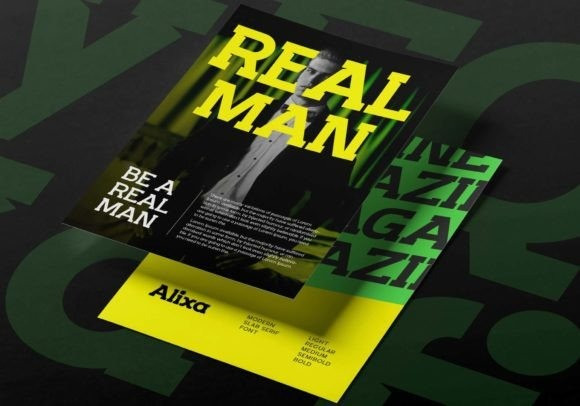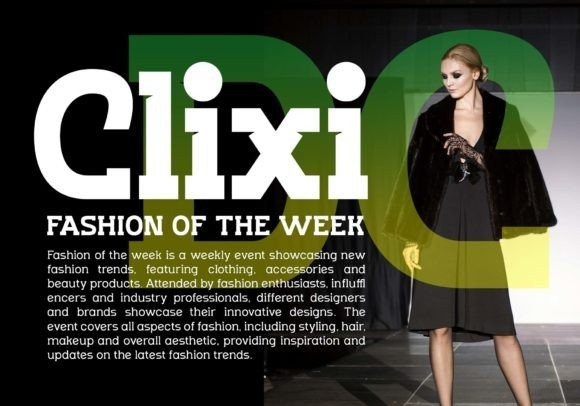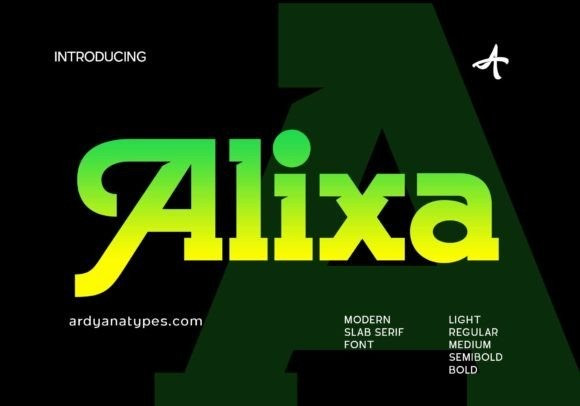
Alixa Font
Say hello to Alixa Slab Serif Font, is a slab serif font that is both attractive and fashionable, designed to bring a stylish edge to your projects. With bold lines and sharp angles, each letter exudes a modern and contemporary vibe that’s perfect for logos, headlines, and other design elements. This font is sure to make a statement and capture your audience’s attention.